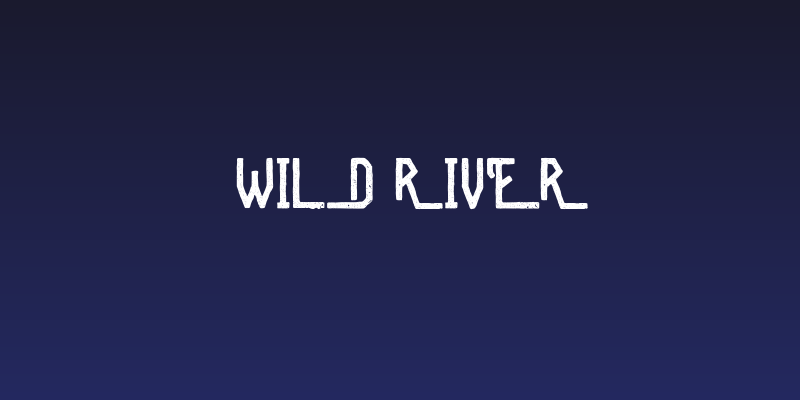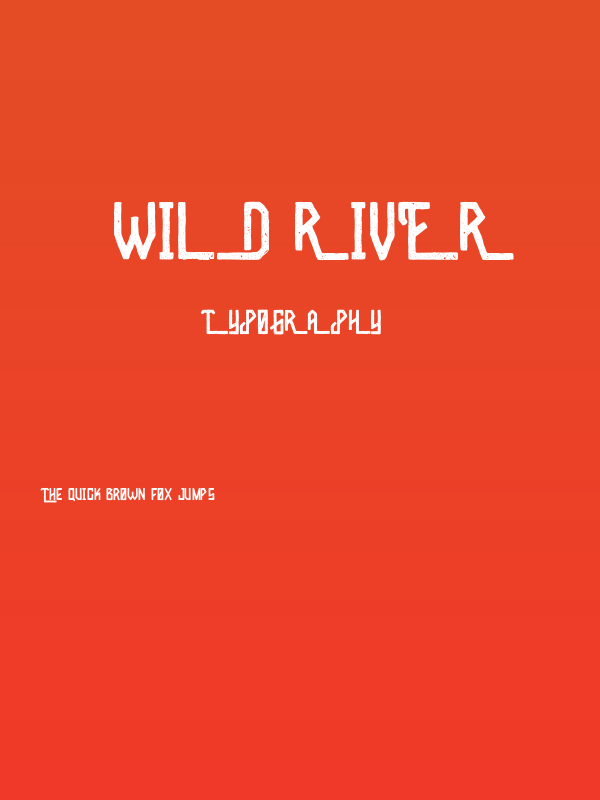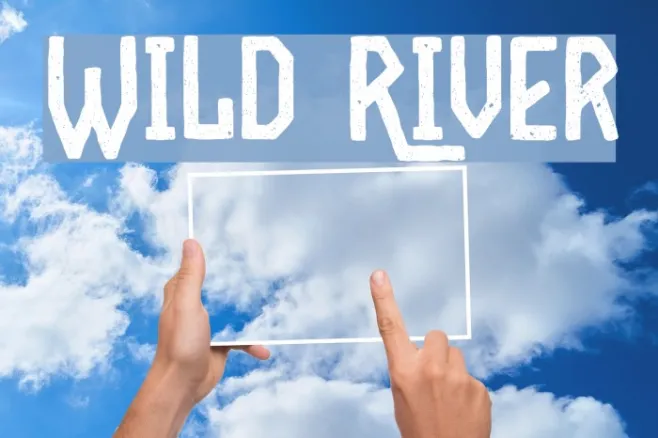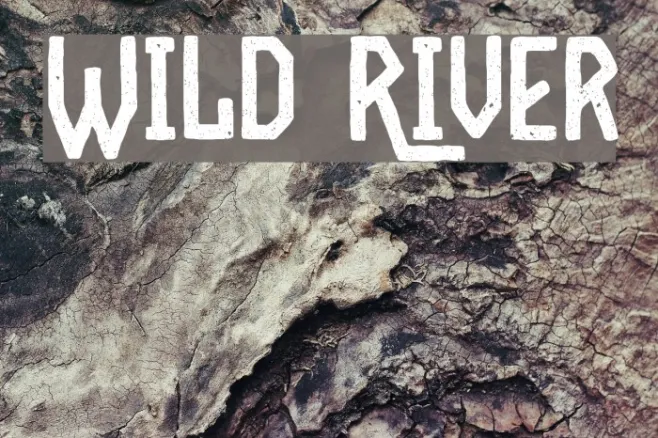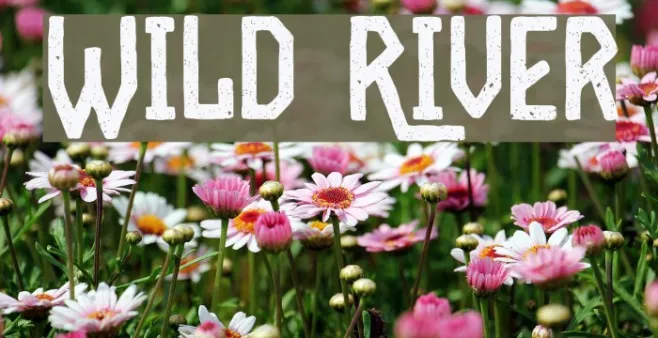
Wild River Font
Wild River Description
This font features a bold and rugged design with a distressed texture, giving it a vintage and rustic appearance. The uppercase letters are blocky and geometric, while the lowercase letters maintain a similar structure but with a slightly more condensed form. The numbers and special characters follow the same stylistic approach, ensuring consistency across all glyphs. The font's unique style is reminiscent of old western or industrial signage, making it ideal for projects that require a strong, impactful visual presence.
| Proposed Projects | Ideal for branding, posters, signage, and any project needing a vintage or industrial aesthetic. |